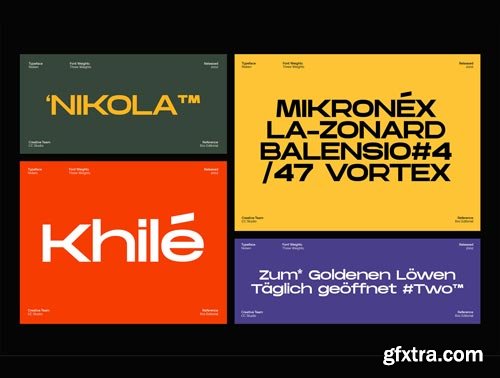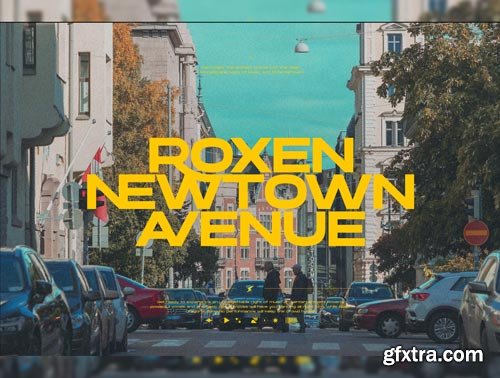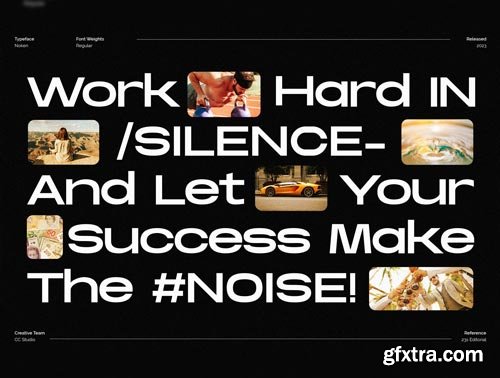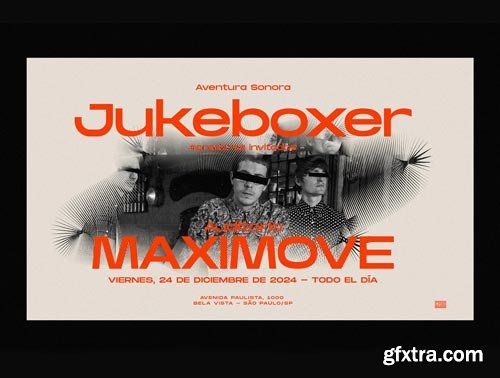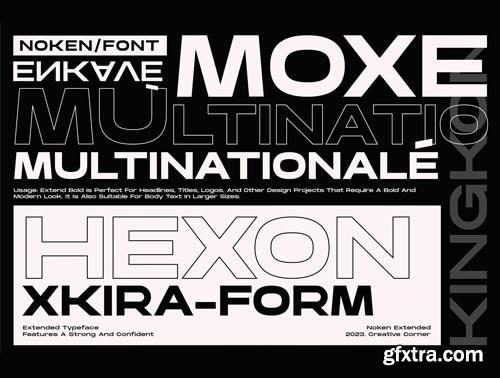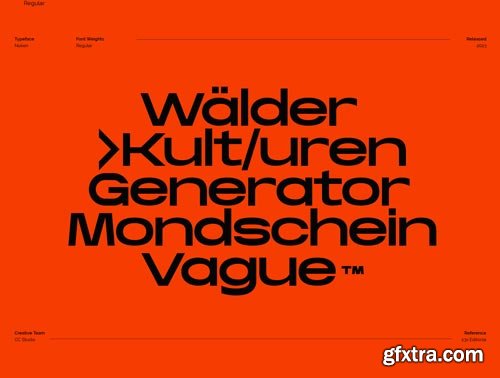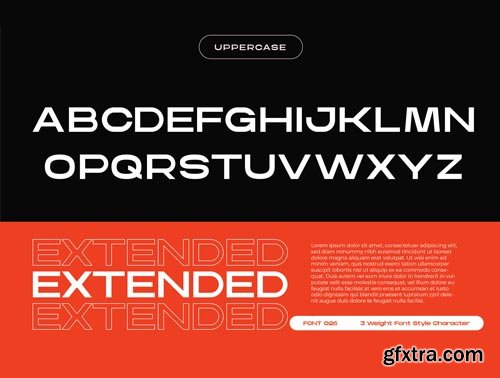
Noken Extended is a sleek and versatile sans-serif display typeface family that comes in three weights with ligatures and alternate letters. Its extended width makes it perfect for creating attention-grabbing typography, whether you're designing for print or digital media.